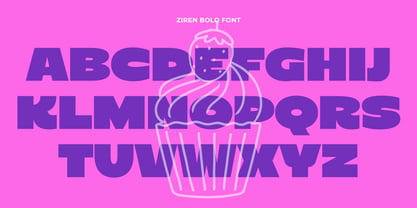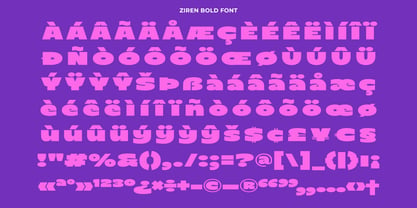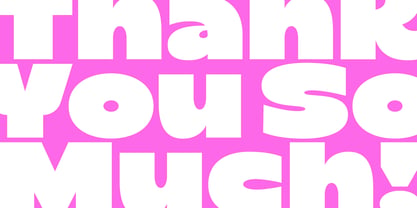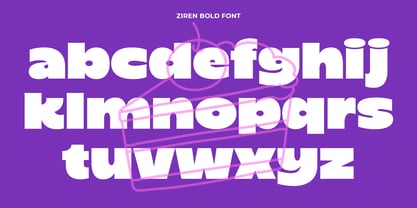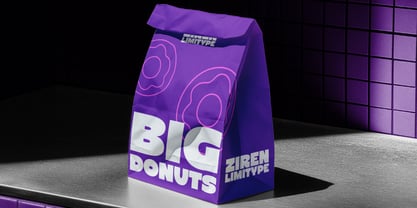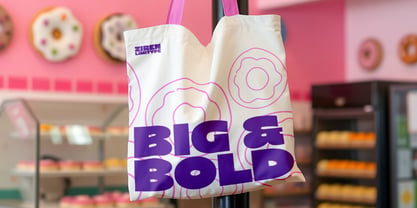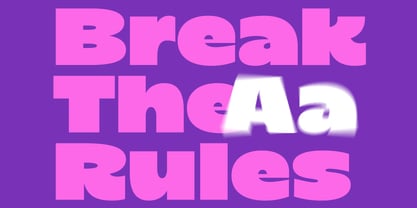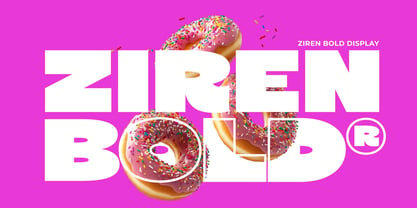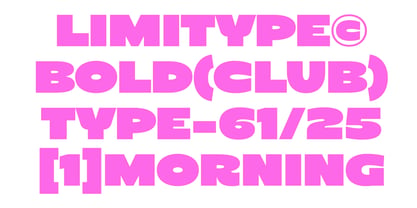
Ziren
von limitype
Die Schriftfamilie Ziren wurde von Muhammad Muammar, Furqan Sudirman entworfen und von limitype veröffentlicht. Ziren enthält 1 Stile. Mehr über diese Familie
Ziren is a bold modern display font that highlights strong, confident, and powerful letterforms. With its geometric shapes and sharp cuts, this font radiates energy, confidence, and the courage to stand out. Perfect for headlines, posters, covers, branding, and designs that aim to look bold and full of expression. Ziren available with: Uppercase Lowercase Number Symbol Multilingual
Designer: Muhammad Muammar, Furqan Sudirman
Foundry: limitype